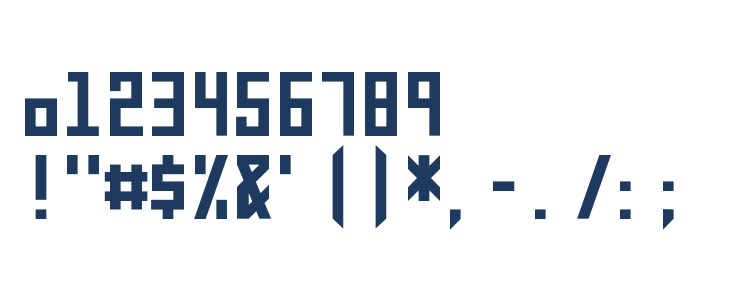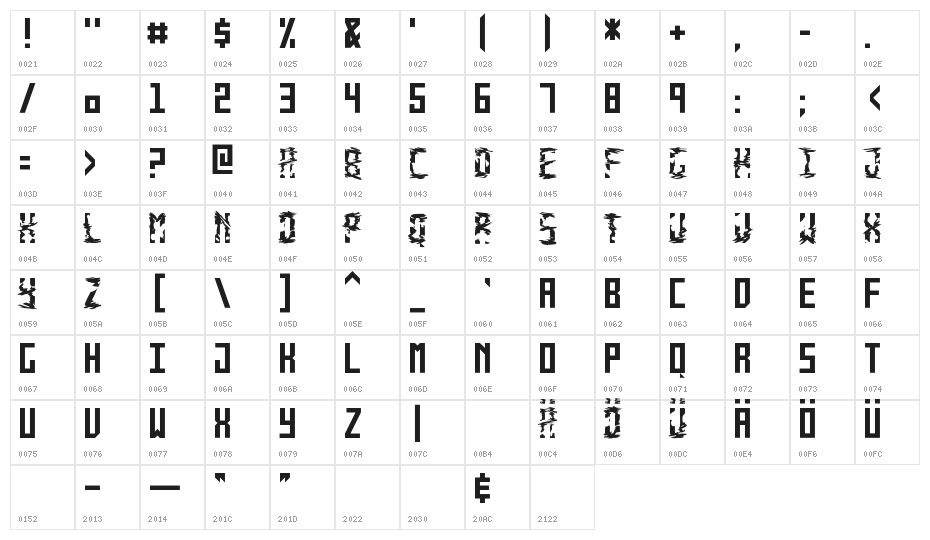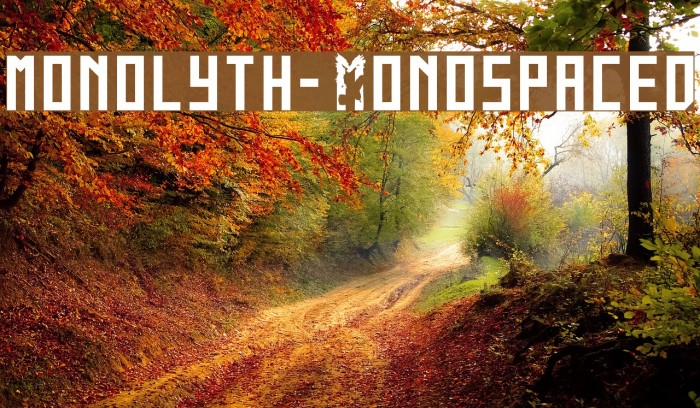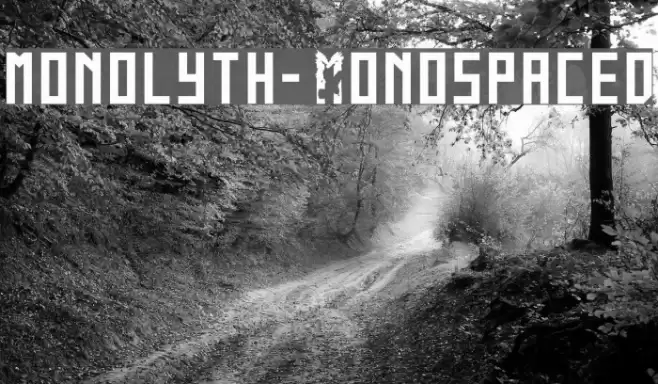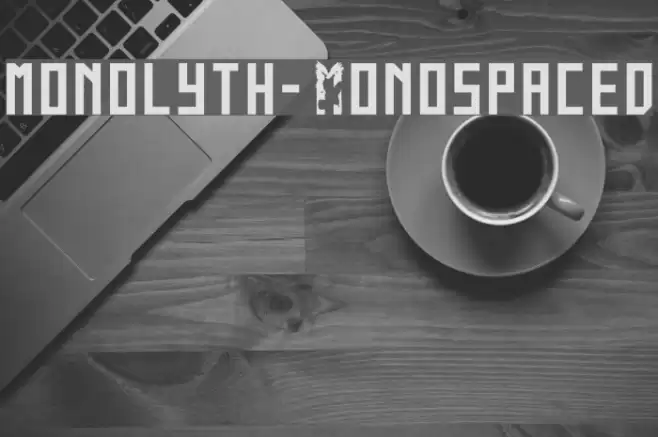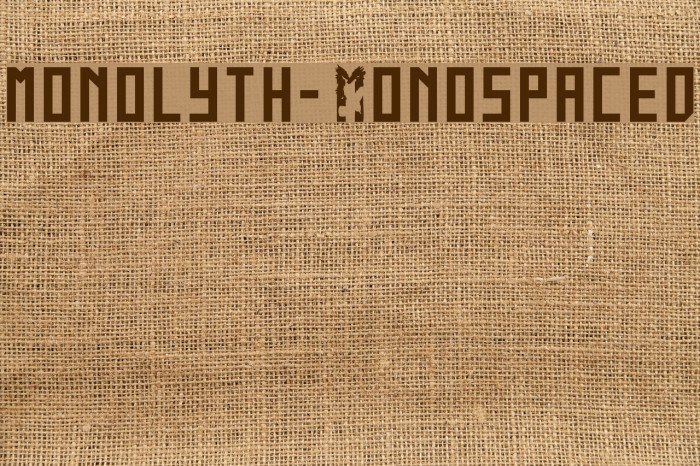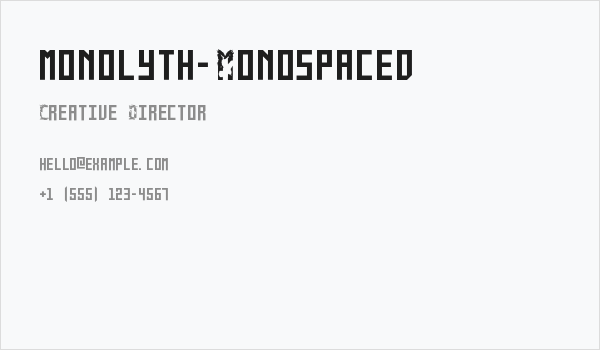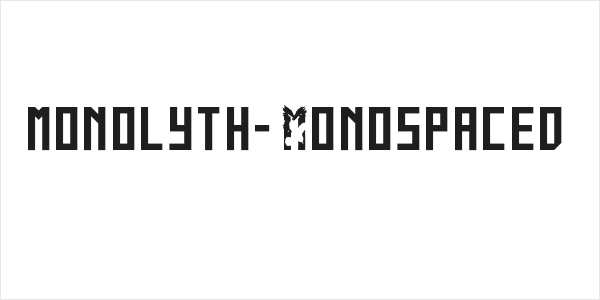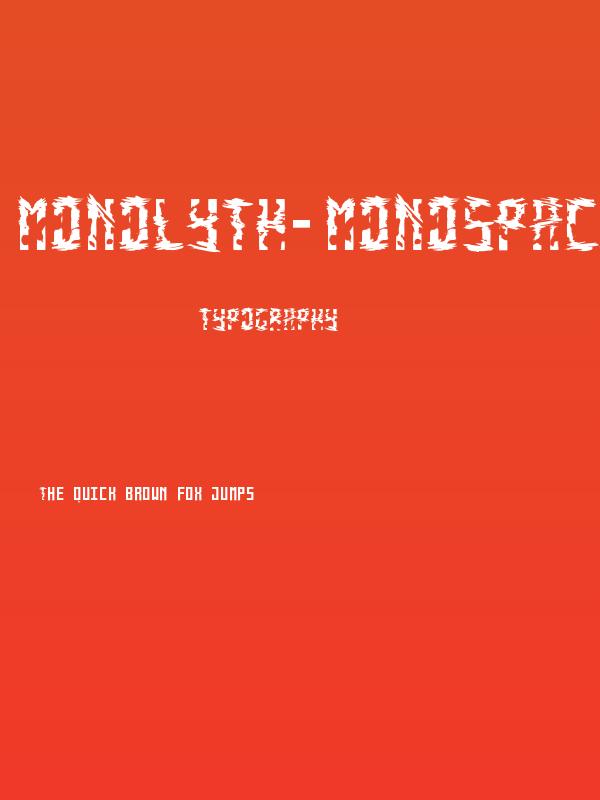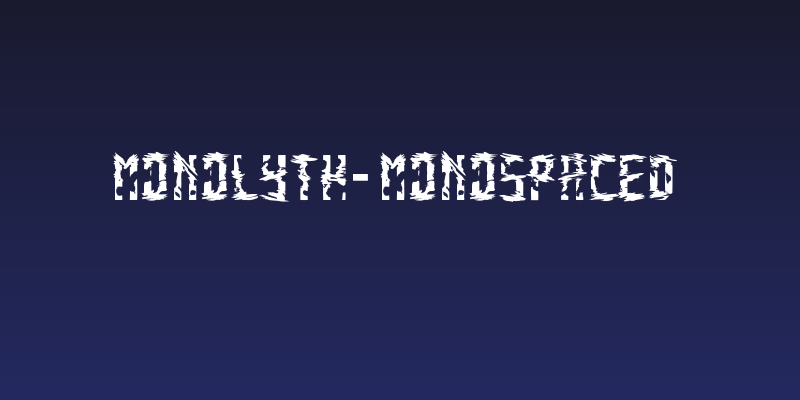
monolyth-Monospaced Font
monolyth-Monospaced Description
This font presents a bold and striking appearance with its monospaced design, characterized by uniform character width. The uppercase letters exhibit a jagged, distressed style, giving a sense of movement and energy, while the lowercase letters and numbers maintain a more structured, geometric form. The font's sharp angles and clean lines create a modern and edgy aesthetic, suitable for projects that require a strong visual impact. The special characters complement the overall design, maintaining consistency in style and weight.
| Overall Style | Modern, Edgy |
| Proposed Projects | Ideal for branding, posters, album covers, and digital artwork that require a bold and modern look. |